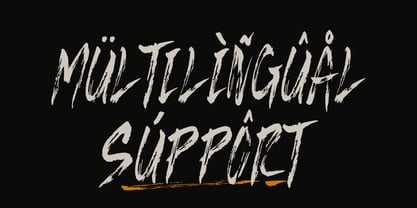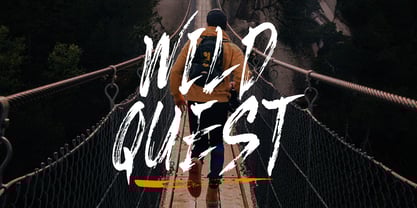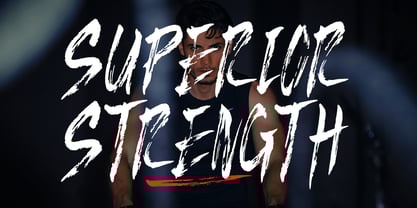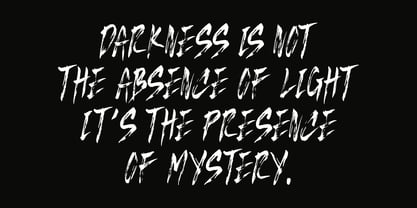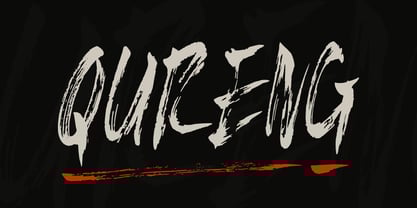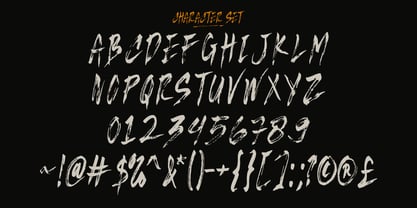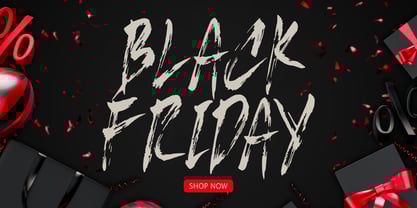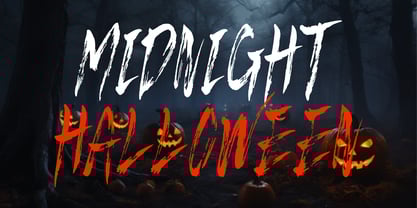
Qureng
by Sealoung
The Qureng Font Family was designed by Saiful Anwar and published by Sealoung. Qureng contains 1 styles.
Qureng – Fierce Brush Font
Unleash raw energy with Qureng, a bold and aggressive brush font crafted to make a brutal impact. Each letter is hand-drawn with wild strokes, rough textures, and chaotic flair—perfect for projects that demand intensity and emotion. Whether you're designing for music covers, horror posters, streetwear brands, or rebellious logos, Qureng brings a fierce and untamed personality to your typography.
This font thrives on contrast—gritty yet stylish, harsh but controlled. The irregular edges and powerful brush marks give it an authentic handmade feel, while maintaining excellent readability.
About Sealoung
My name is Saiful Anwar, We live in Mojokerto, Indonesia. We started my type foundry studio called Sealoung Studio in 2020. Sealoung is a Type Design Studio that makes unique fonts for your business purpose. We are always interested and focused on aesthetics, functionality, legibility, suitable for branding and broad design purposes. When creating a font, we usually start by exploring the characters first. Most of the time we draft letters by drawing them until it gets a character that has a deep personality. His works span a variety of styles and themes and have been trusted by major, local and international companies. Let's be a friend and follow us to get our products updates. Thank You!